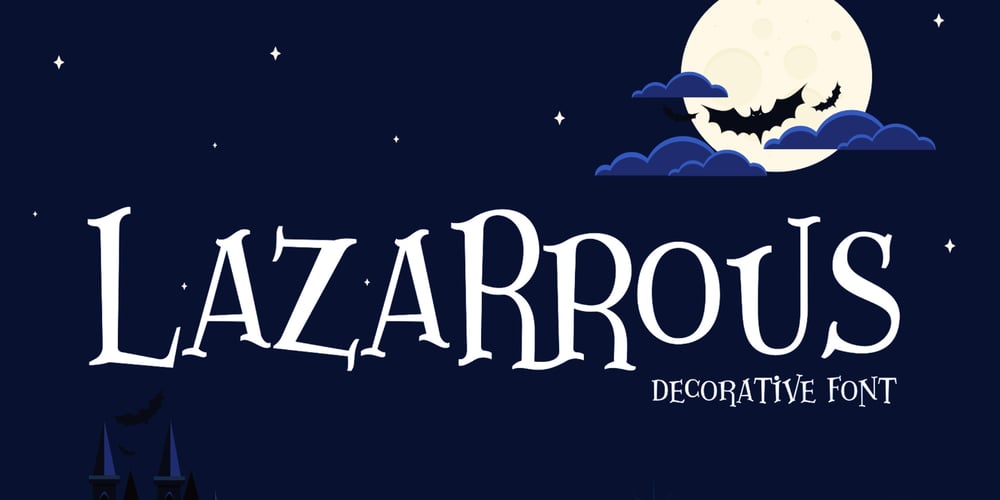
Lazarrous
Lazarrous font
Lazarrous Font Family was designed by Studio LetterStock and published by LetterStock. Lazarrous contains 1 styles and family package options. Lazarrous FontThis pair was inspired by the haloween poster design that i saw at some coffee shop, It was crafted by hand specially to add natural handmade feeling in its brand identity than i make it clean with pentool.Opentype features Lazarrous font has 171 character set included Lazarrous Font is very good looking in logo, labels, t-shirt prints, product packaging, invitations, advertising and others.What includesMultilingual support (Western European characters).This fonts works with following languages: English, Danish, Dutch, Estonian, Faroese, Filipino, Finnish, French, German, Hungarian, Icelandic, Irish, Italian, Norwegian, Polish, Portuguese, Spanish, Swedish.Thank you for using this font. LS